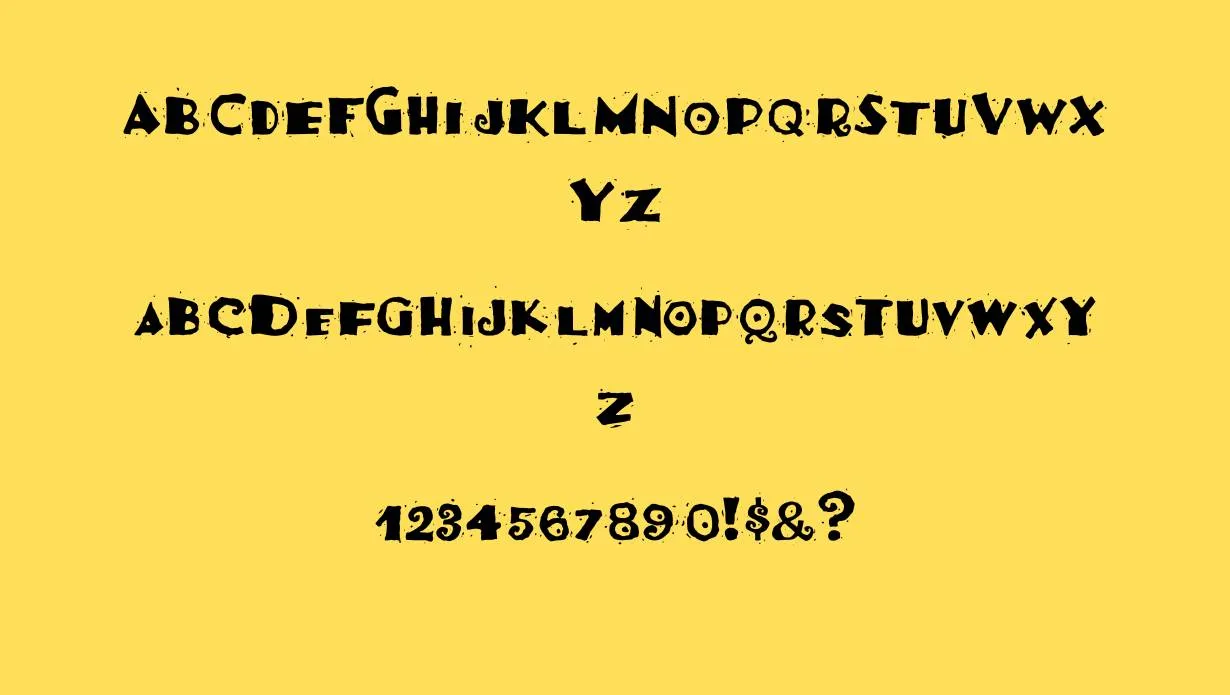
The Burrito font brings a burst of flavor to your text. Its rounded and whimsical letters make it perfect for designing lively restaurant menus, attractive food packaging, or vibrant event invitations.
This font, with its medium weight and standard width, strikes a balance between being attention-grabbing and easy to read. Picture using the Burrito font for a food truck logo, infusing your branding with a sense of culinary joy and a dash of fiesta spirit.
| Name | Burrito Font |
| Designer | Jeri Ingalls |